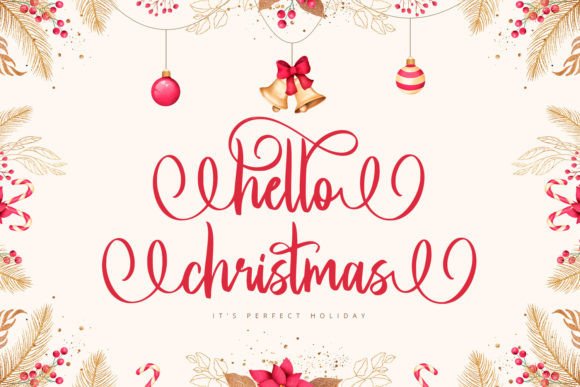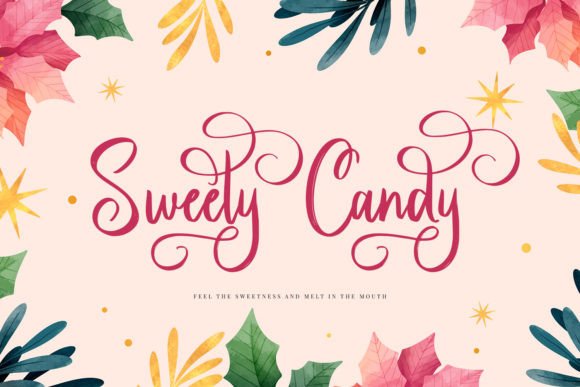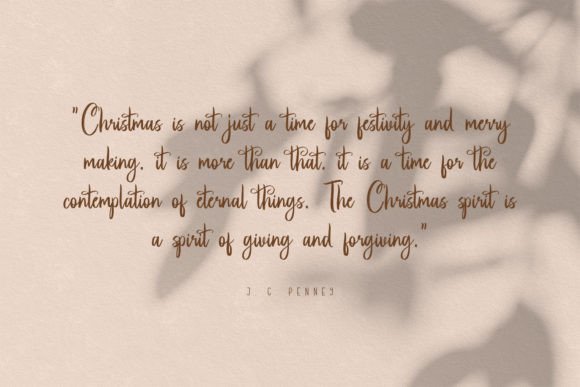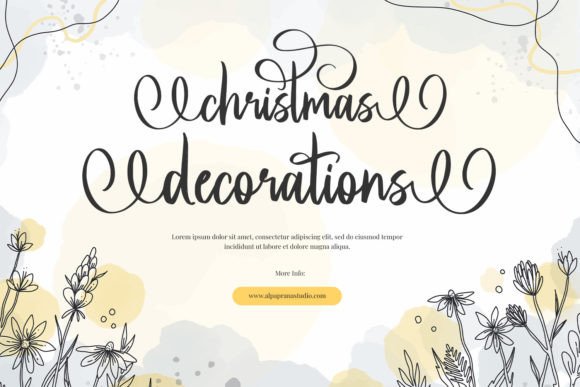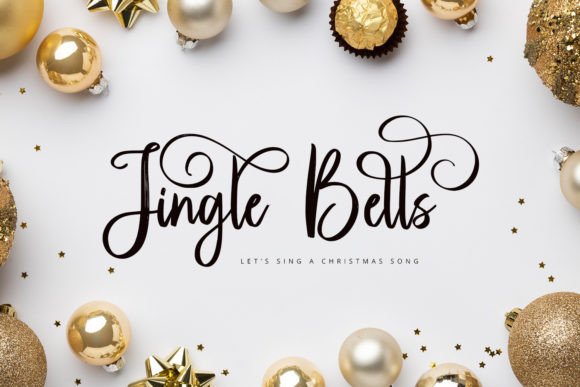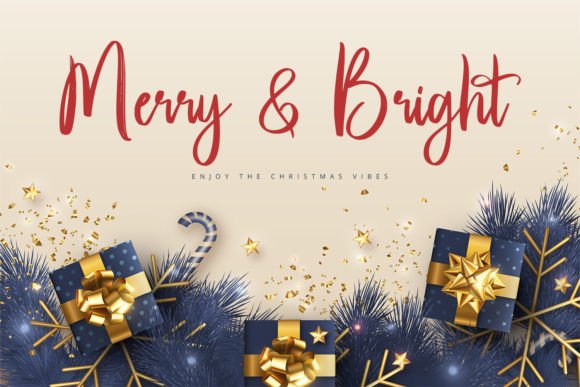
Greetings Font – Free Download
Introduction to Greetings Font
Greetings is a modern script font with an elegant and unique style.
It will be perfectly used for Branding, Logo Design, Lettering, Logotype, Clothing, Poster, magazine, packaging, posters, shopping bags, t-shirts, book covers, photography, special events, and other design projects .
Key Features of Greetings Font
Why Choose Greetings Font?
Greetings Font offers exceptional quality and versatility, making it a valuable addition to your design toolkit. Whether you’re creating for personal projects or commercial use, Greetings Font delivers professional results.